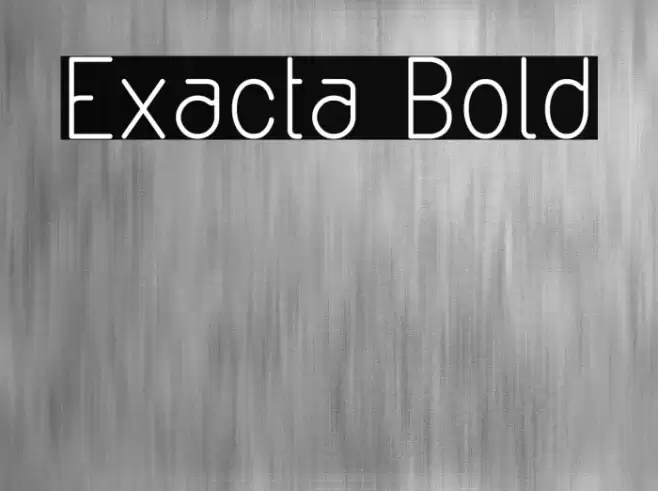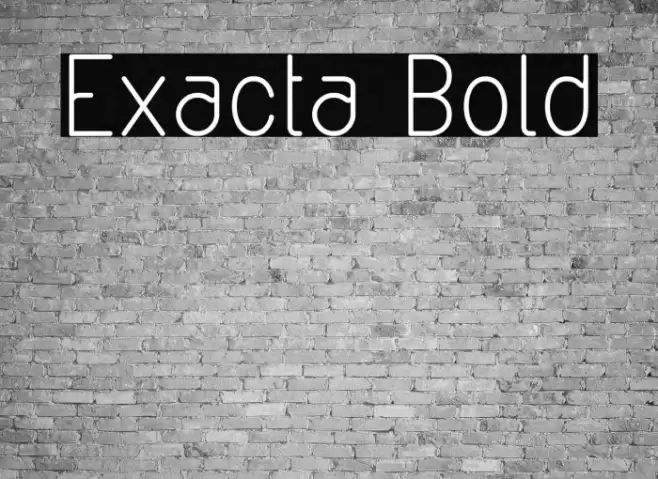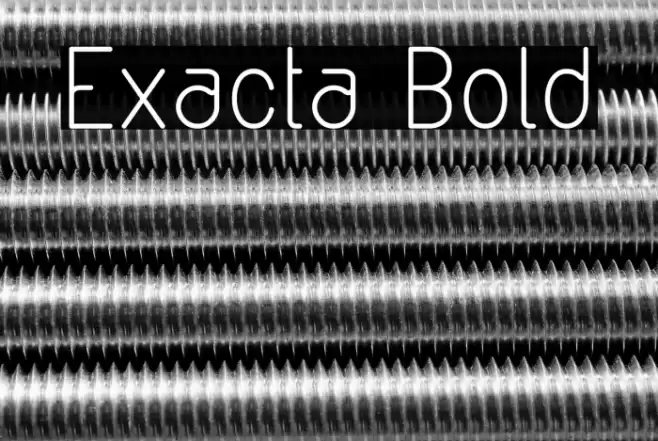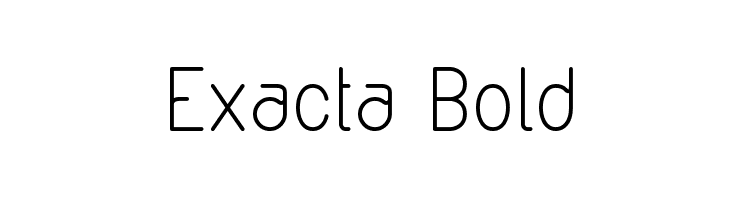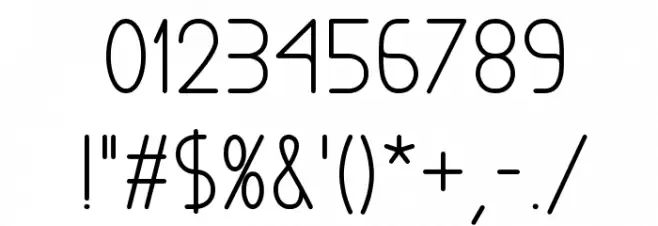
Exacta Bold Font
Exacta Bold Description
This font features a clean and modern sans-serif style with a geometric structure. The characters are evenly spaced and have a consistent stroke width, giving it a uniform appearance. The uppercase letters are tall and slightly narrow, while the lowercase letters maintain a similar width, creating a harmonious balance. The numerals are clear and easy to read, matching the overall aesthetic of the alphabet. Special characters are designed with the same geometric precision, ensuring they integrate seamlessly with the rest of the character set. This font is versatile and suitable for a variety of design applications.
A clean, geometric sans-serif font with consistent stroke width and balanced character design from Uncategorized fonts.
- Proposed Projects: Ideal for modern branding, web design, signage, and editorial layouts.
- Use Case: Headlines, Logos, Web design